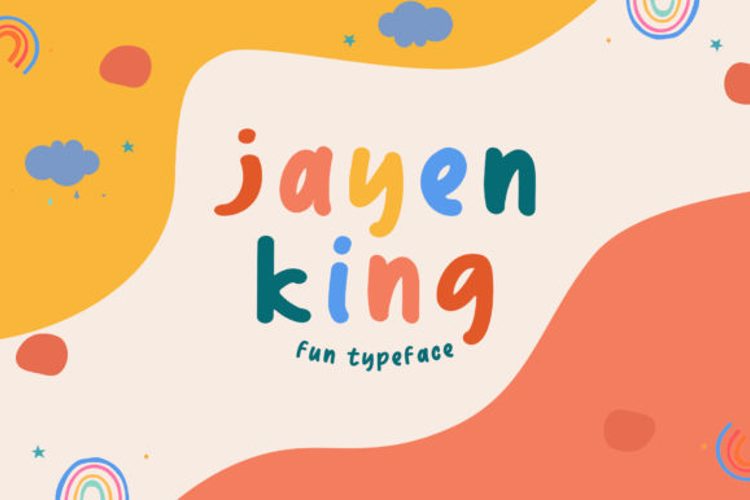
Jayen King Font
Jayen King (Demo) Style
Jayen King is a cool, adaptable and friendly display font. It looks as if it was the handwriting of a child, and as a result, this font will be the perfect choice for writing letters to Santa or adding a touch of innocence to your creations.